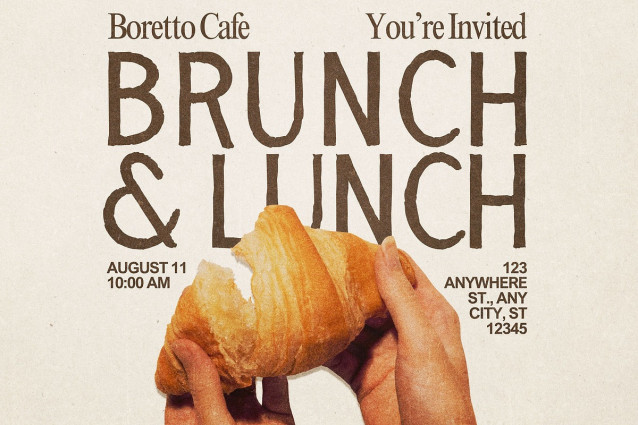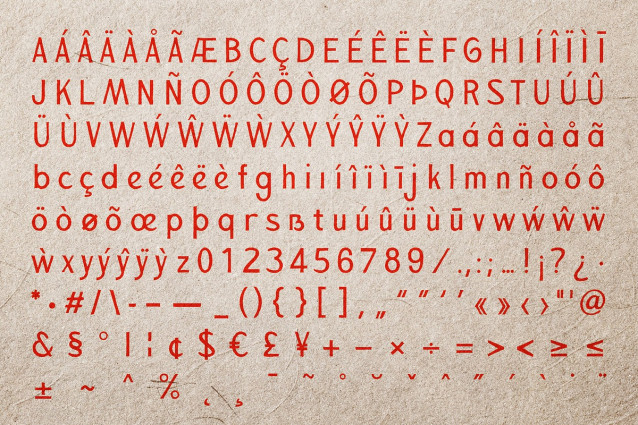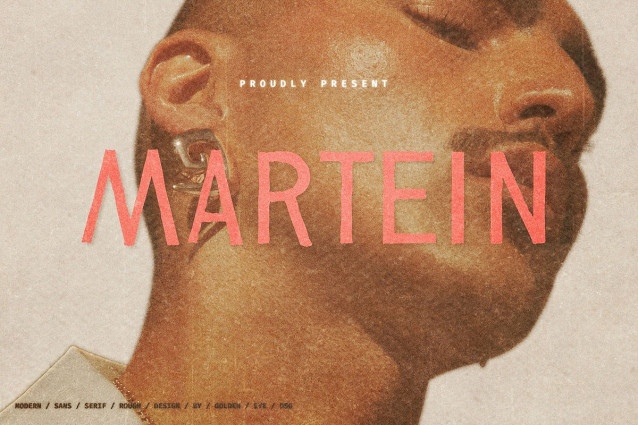
Martein Font
Martein Font is a modern and retro typeface, best used as a display for headings, logos, branding, magazines, product packaging and invitations. Martein comes with rough lines that give a vintage touch to any project.